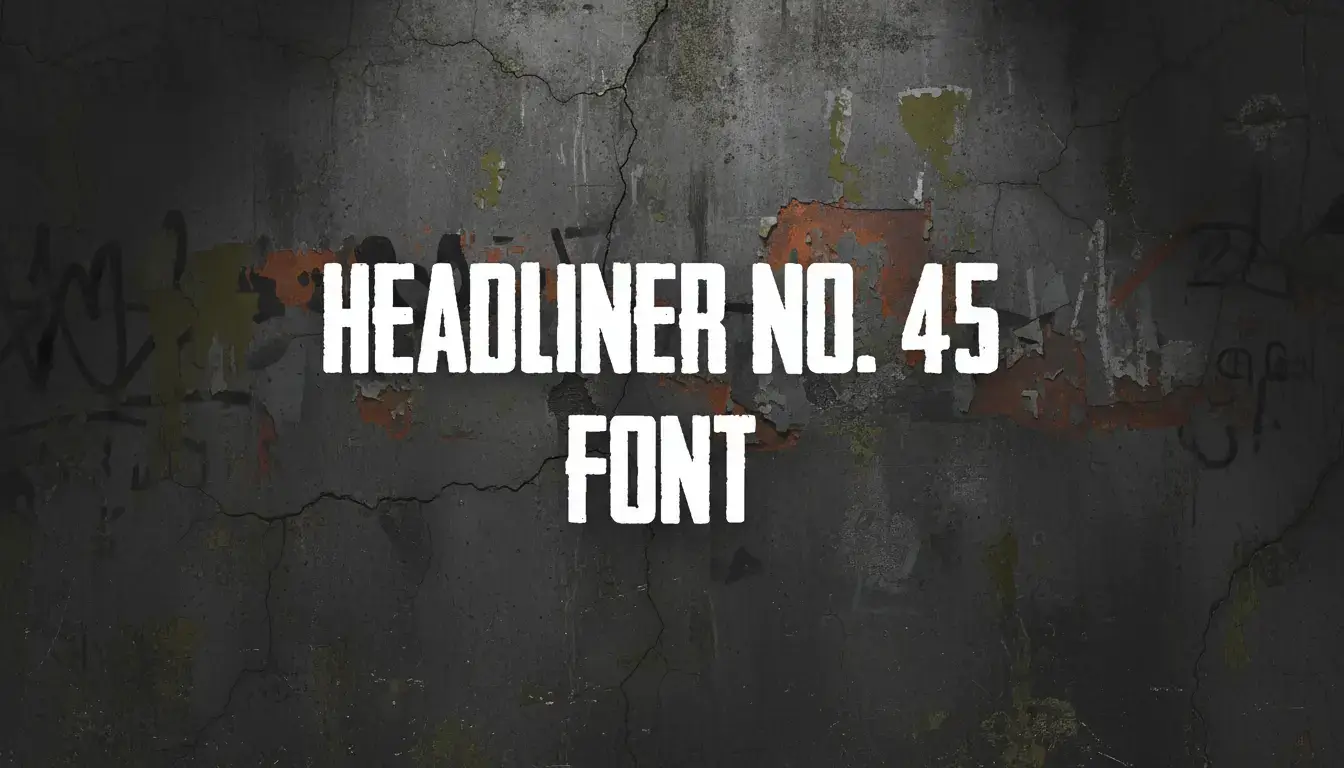
Headliner No. 45 Font
Headliner No. 45
Headliner No. 45 is a fancy font designed by Kevin Christopher. Bold and full of character, it's built to stand out rather than blend in. You can download it for free and test it with your own words in the preview above.
What You Can Type With Headliner No. 45
Headliner No. 45 covers the full alphabet in upper and lowercase, plus all ten numbers, so you can set names, dates and prices without switching fonts. Everyday marks like &, !, ? and @ are there too. Thanks to its accented letters, it also works for Spanish, French, German, Portuguese and Italian, not just English.
Where Headliner No. 45 Works Best
Headliner No. 45 is a natural fit for posters, logos and eye-catching headlines. Use it for one standout word or headline and let simpler fonts handle the rest.
Does Headliner No. 45 support accented letters?
Yes. Headliner No. 45 includes the accented letters needed for Spanish, French, German, Portuguese and Italian, so it works for more than just English.